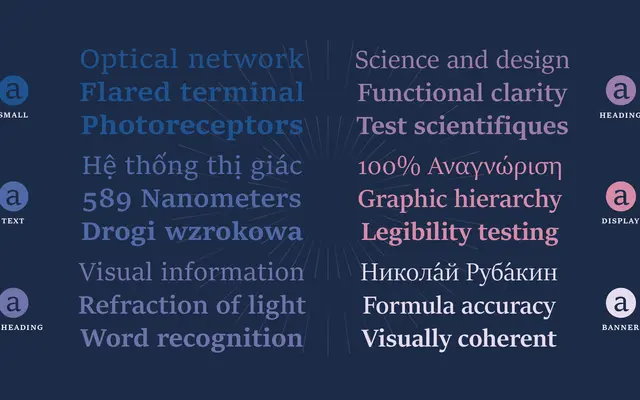
A humanist serif in six size-specific optical cuts, spanning Small through Banner, with broad Latin and Cyrillic coverage across 36 static styles.
Designed for precise optical performance at each point size, Sitka provides distinct drawings for Small, Text, Subheading, Heading, Display and Banner settings rather than scaling a single master. Each optical size is available in Regular, Semibold and Bold with matching italics, and the family also ships as two variable font files covering the full size and weight range. The Cyrillic and extended Latin character sets make it well suited to multilingual publishing and document work.
Sitka is a text serif with six size-specific optical designs ranging from Small to Banner, reflecting a humanist approach to legibility across a wide range of point sizes and rendering environments.